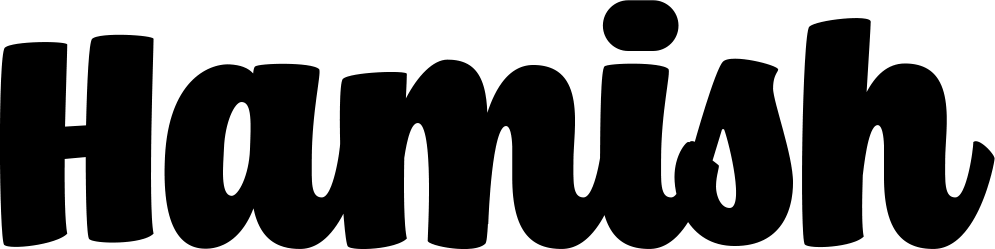
Hamish Font
Hamish is a fun and continuous script font with bold and big characters that look like they have been written with a brush. We usually see this kind of font in t-shirt designs and summer flyers. You can also use this fat marker font for advertisements, book titles, children’s books and movies, comedy shows, and personal blogs.
Introducing a new script typeface, Hamish Script Font. A special typeface, designed with taste deliciously, then fruity, and milky. You can be used for various Purposes taglines like t-shirt design, logos quotes design, etc.